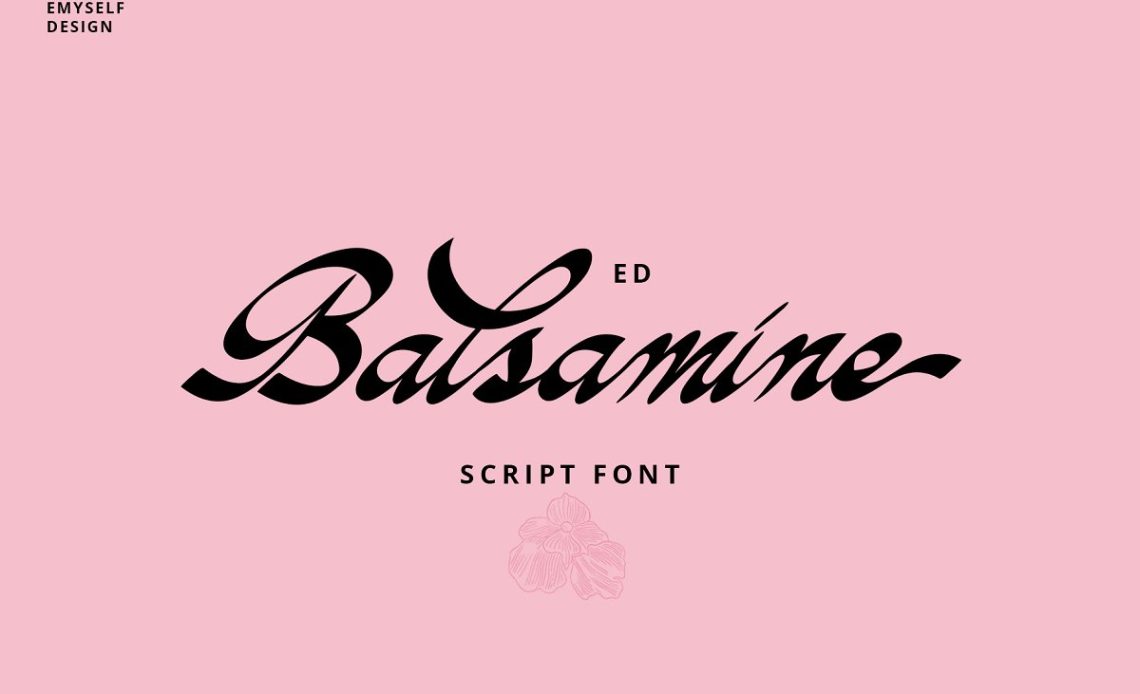
Introducing the captivating ED Balsamine script font, a masterpiece created by the talented Eko Setiawan. With its elegant style and a touch of fancy, this font is sure to elevate your design projects to new heights.
Inspired by previous script fonts, ED Balsamine was carefully crafted using a calligraphy brush pen, making it not only visually stunning but also incredibly versatile. It allows for seamless combinations with other fonts, giving you the freedom to create unique and captivating designs.
One of the standout features of this font is its extensive range of open types, including ligatures, stylistic sets, and contextual alternatives. These features provide endless possibilities for customization, allowing you to truly make your designs stand out.
In addition, ED Balsamine supports multiple languages, ensuring that language barriers will never hinder your creativity. Whether you're designing posters, magazines, logos, branding, packaging, or any other project, this font is your perfect companion.
The ED Balsamine script font is not just visually pleasing; it also offers a seamless user experience. Its user-friendly nature makes it accessible to designers of all skill levels, enabling both beginners and experts to create stunning designs effortlessly.